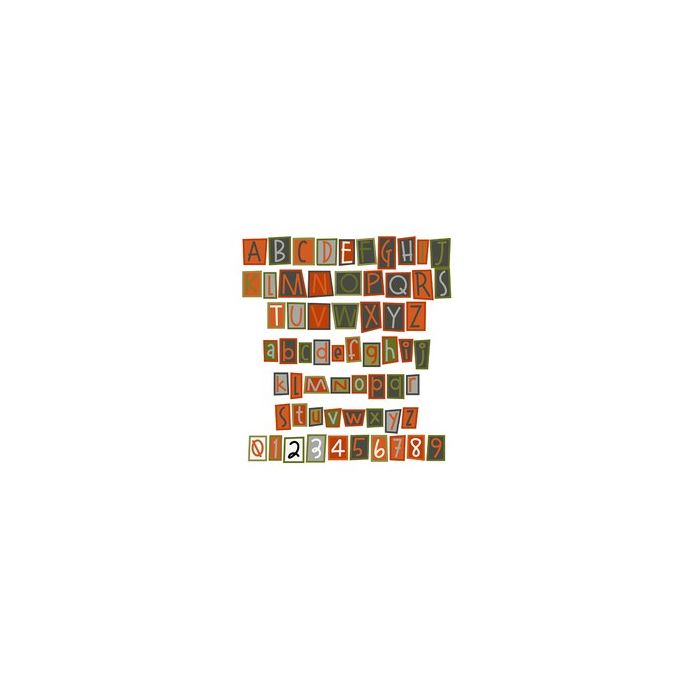
This full-color font features a hopscotch style font in a Halloween color palette. There is an alt case w/ additional colors you can access through your system or Silhouette's glyph map.